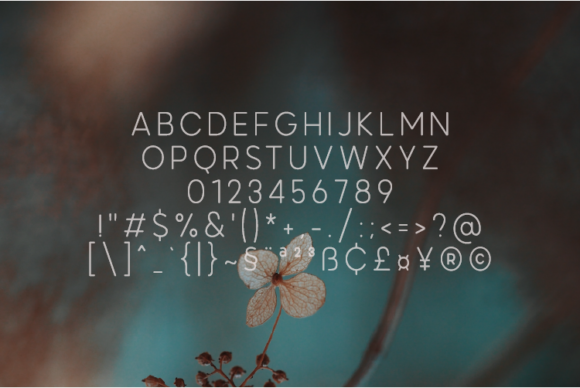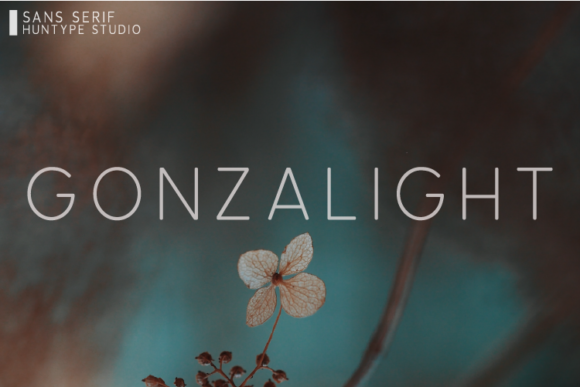
Gonzalight Font: Elevate Your Designs with a Clean and Sophisticated Sans Serif
In the world of typography, a font can make or break a design. A well-chosen font can elevate your project, convey the right tone, and capture the attention of your audience. If you’re a designer or crafter looking for a versatile and stylish sans serif font, look no further than Gonzalight. In this article, we’ll explore the features and benefits of Gonzalight, and why it’s the perfect choice for your next design project.
What is Gonzalight?
Gonzalight is a clean and sophisticated sans serif font that’s designed to make a statement. With its sleek lines, precise curves, and balanced proportions, Gonzalight exudes a sense of modernity and refinement. This font is perfect for use as large-scale headlines, mastheads, titles, and more. Whether you’re working on a branding project, a website, or a print design, Gonzalight is sure to make a lasting impression.
Key Features of Gonzalight
• Clean and Sophisticated Design: Gonzalight’s sans serif design is both clean and sophisticated, making it perfect for a wide range of design applications.
• Large-Scale Headlines: Gonzalight is optimized for use as large-scale headlines, making it perfect for titles, mastheads, and other display text.
• Versatile: Gonzalight is a versatile font that can be used in a variety of design contexts, from digital to print.
• Easily Readable: Despite its sleek design, Gonzalight is easily readable, even at smaller font sizes.
Benefits of Using Gonzalight
So why choose Gonzalight for your next design project? Here are just a few benefits of using this versatile font:
• Instant Professionalism: Gonzalight’s sophisticated design instantly adds a level of professionalism to your design.
• Flexibility: Gonzalight can be used in a wide range of design applications, from headlines to body text.
• Uniqueness: Gonzalight’s clean and modern design sets it apart from more traditional sans serif fonts.
• Easy to Pair: Gonzalight pairs well with a variety of other fonts, making it easy to create a cohesive design.
How to Use Gonzalight in Your Designs
So how can you use Gonzalight in your designs? Here are a few ideas to get you started:
• Headlines and Titles: Use Gonzalight as a headline or title font to add a touch of sophistication to your design.
• Mastheads and Logos: Gonzalight is perfect for use in mastheads and logos, where a clean and modern design is essential.
• Branding and Advertising: Use Gonzalight in your branding and advertising materials to add a level of professionalism and sophistication.
• Web Design: Gonzalight is optimized for use on the web, making it perfect for website headers, titles, and other display text.
Author Huntype
In conclusion, Gonzalight is a versatile and stylish sans serif font that’s perfect for designers and crafters looking to elevate their designs. With its clean and sophisticated design, Gonzalight is perfect for use as large-scale headlines, mastheads, titles, and more. Whether you’re working on a branding project, a website, or a print design, Gonzalight is sure to make a lasting impression. So why not give Gonzalight a try today and see the difference it can make in your designs?
• Gonzalight is a clean and sophisticated sans serif font.
• It’s perfect for use as large-scale headlines, mastheads, titles, and more.
• Gonzalight is versatile and can be used in a variety of design contexts.
• It’s easily readable, even at smaller font sizes.